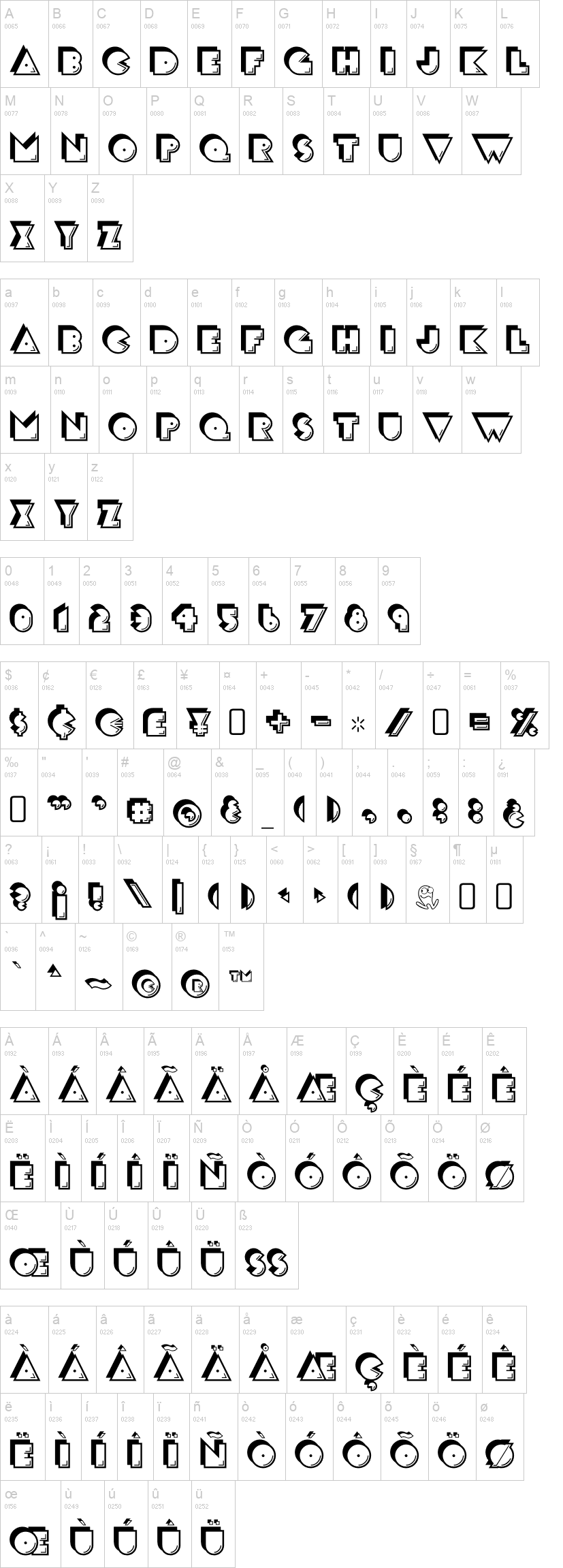
Crackman Back.otfCrackman Front.otfNote of the authorCrackman is an Art Deco style, counterless headline typeface with a 1980s video game look. Most Latin-based European writing systems are supported, including the following languages. Afaan Oromo, Afar, Afrikaans, Albanian, Alsatian, Aromanian, Aymara, Bashkir (Latin), Basque, Belarusian (Latin), Bemba, Bikol, Bosnian, Breton, Cape Verdean, Creole, Catalan, Cebuano, Chamorro, Chavacano, Chichewa, Crimean Tatar (Latin), Croatian, Czech, Danish, Dawan, Dholuo, Dutch, English, Estonian, Faroese, Fijian, Filipino, Finnish, French, Frisian, Friulian, Gagauz (Latin), Galician, Ganda, Genoese, German, Greenlandic, Guadeloupean Creole, Haitian Creole, Hawaiian, Hiligaynon, Hungarian, Icelandic, Ilocano, Indonesian, Irish, Italian, Jamaican, Kaqchikel, Karakalpak (Latin), Kashubian, Kikongo, Kinyarwanda, Kirundi, Kurdish (Latin), Latvian, Lithuanian, Lombard, Low Saxon, Luxembourgish, Maasai, Makhuwa, Malay, Maltese, Māori, Moldovan, Montenegrin, Ndebele, Neapolitan, Norwegian, Novial, Occitan, Ossetian (Latin), Papiamento, Piedmontese, Polish, Portuguese, Quechua, Rarotongan, Romanian, Romansh, Sami, Sango, Saramaccan, Sardinian, Scottish Gaelic, Serbian (Latin), Shona, Sicilian, Silesian, Slovak, Slovenian, Somali, Sorbian, Sotho, Spanish, Swahili, Swazi, Swedish, Tagalog, Tahitian, Tetum, Tongan, Tshiluba, Tsonga, Tswana, Tumbuka, Turkish, Turkmen (Latin), Tuvaluan, Uzbek (Latin), Venetian, Vepsian, Võro, Walloon, Waray-Waray, Wayuu, Welsh, Wolof, Xhosa, Yapese, Zapotec Zulu and Zuni.